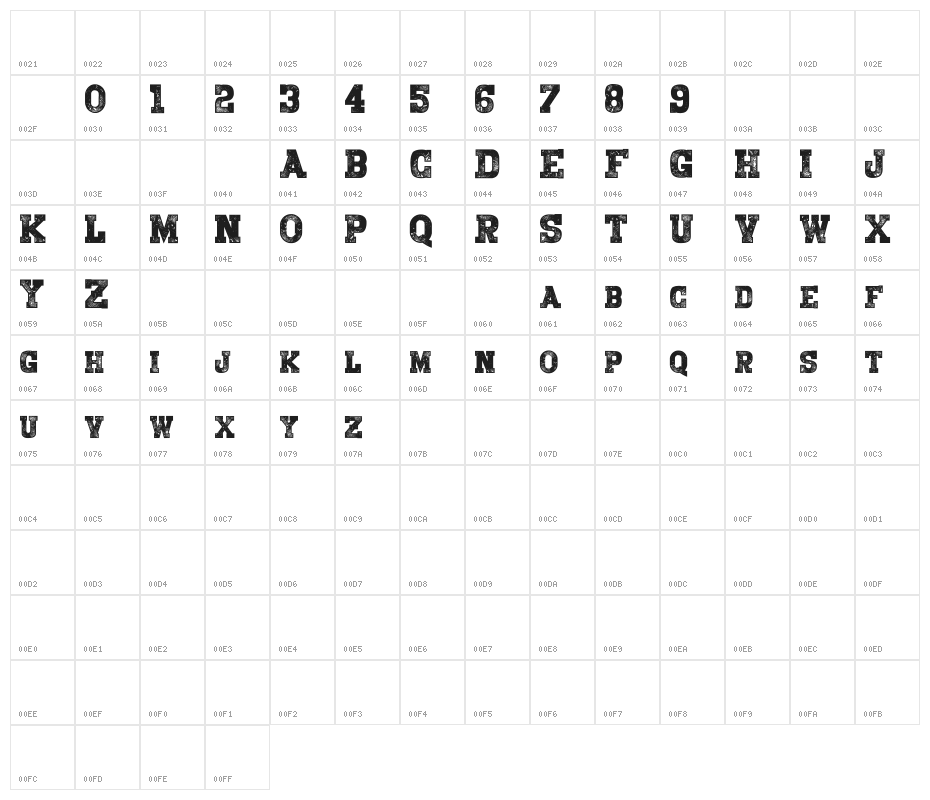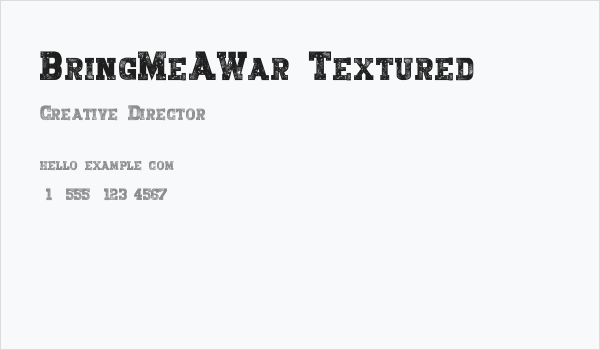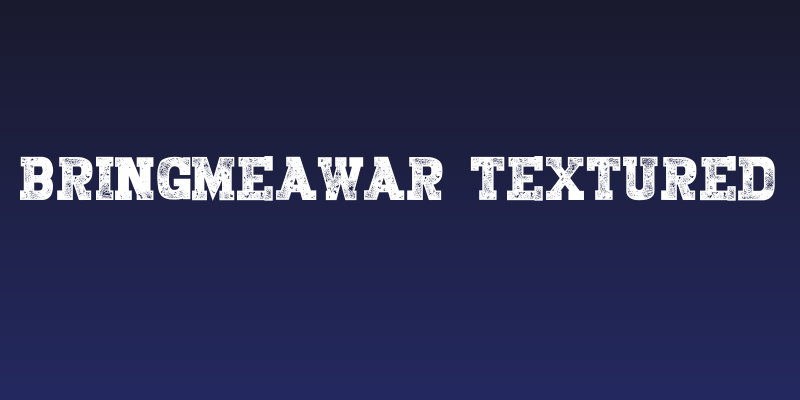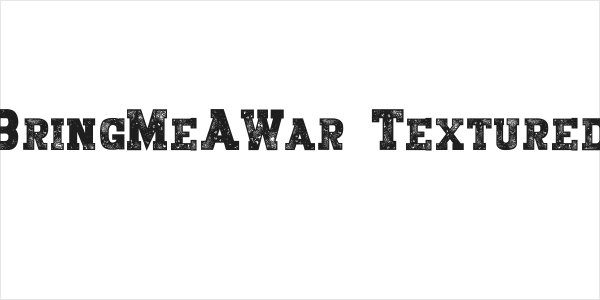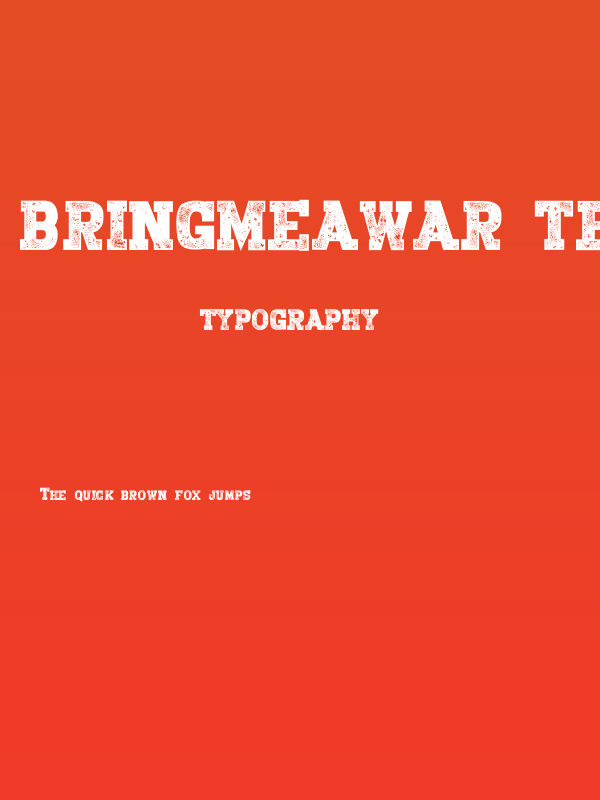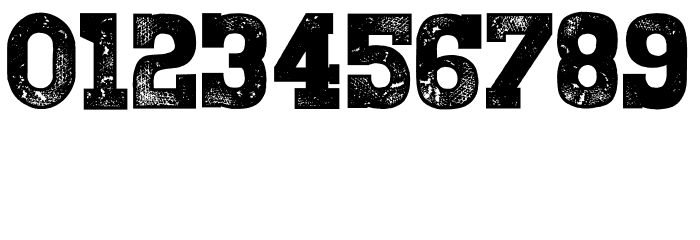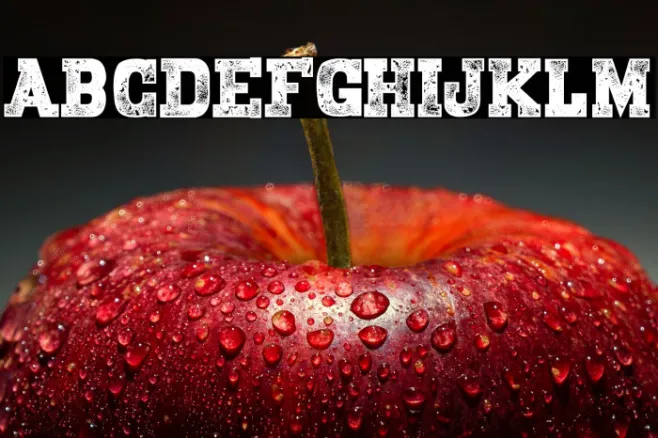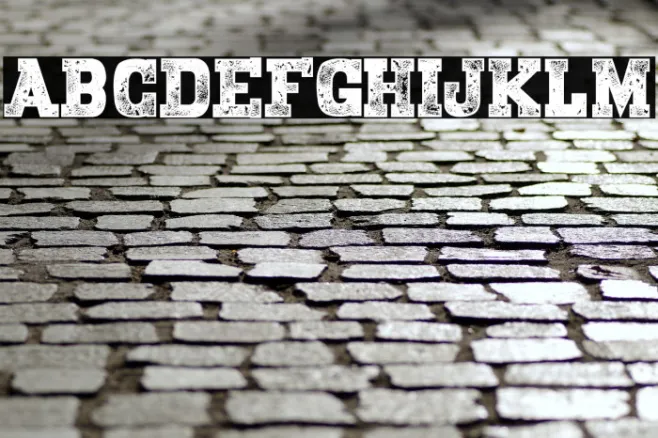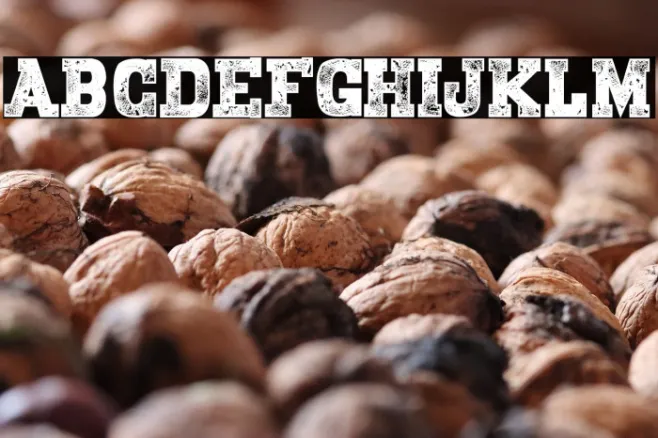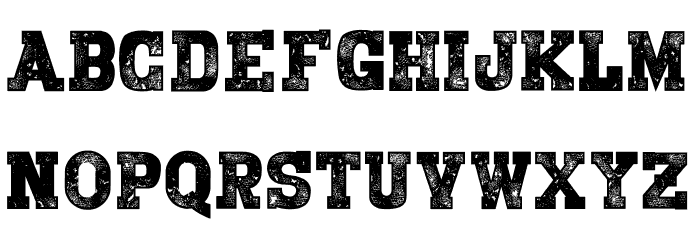
BringMeAWar_Textured Font
BringMeAWar_Textured Description
This font features a bold, textured style with a distressed appearance, giving it a rugged and vintage feel. The uppercase letters are strong and impactful, making them ideal for attention-grabbing headlines. The texture within each character adds a layer of depth and interest, reminiscent of worn-out prints or weathered surfaces. This font is perfect for projects that require a bold statement with a touch of nostalgia or a gritty edge. Its robust design ensures readability while maintaining a unique aesthetic that stands out.
| Proposed Projects | Ideal for posters, album covers, branding for rustic or vintage-themed businesses, and any design needing a bold, textured statement. |